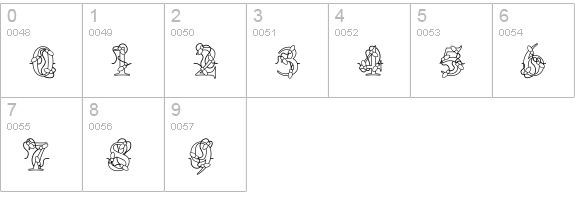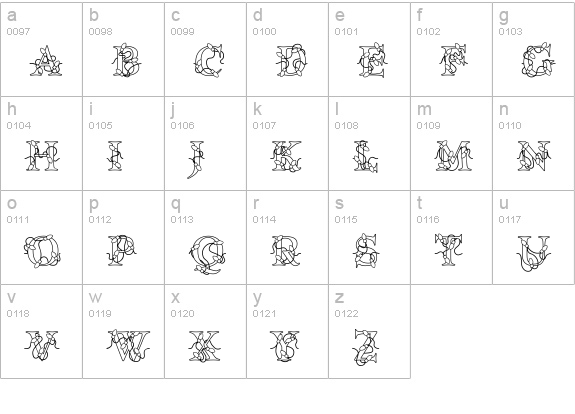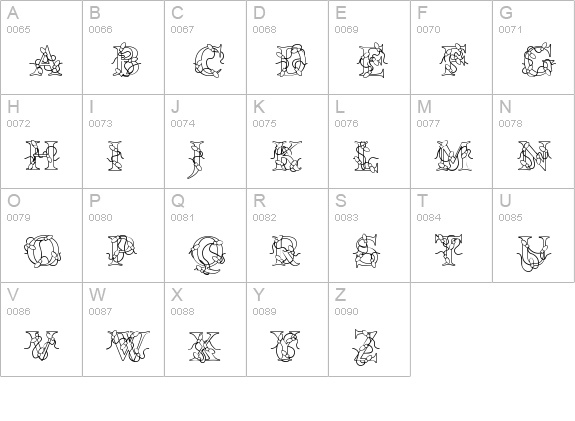
PC Lights Font Details
PC Lights font is a stunning display typeface that exudes a sense of sleek elegance and modernity. This font is perfect for adding a touch of sophistication to any design project, whether it be a logo, headline, or even a stylish poster. With its clean and crisp lines, PC Lights font captures attention effortlessly, making it an ideal choice for those who want their designs to stand out from the crowd. Its unique letterforms and distinctive curves create a harmonious balance between classic elegance and contemporary flair. One of the best things about PC Lights font is that it is available for free to download at FontsMarket.com. This means that you can easily access this incredible typeface without any hassle or cost. Whether you are a professional designer or someone looking to add a touch of creativity to your personal projects, PC Lights font is the perfect choice. The versatility of PC Lights font is another noteworthy feature. It can be used for various purposes, from branding and advertising to invitations and social media graphics. Its legibility and readability ensure that your message is conveyed with clarity and impact. PC Lights font is designed to be user-friendly, allowing anyone to use it with ease. Its extensive character set includes uppercase and lowercase letters, numbers, punctuation marks, and special symbols, giving you the flexibility to create diverse and eye-catching designs. Add a touch of elegance and style to your designs with PC Lights font. Download it for free today at FontsMarket.com and unleash your creativity like never before. Whether you are a seasoned professional or a beginner, this font is sure to elevate your design projects to new heights. Don't miss out on this incredible opportunity to enhance your work with a font that is both visually stunning and freely available.